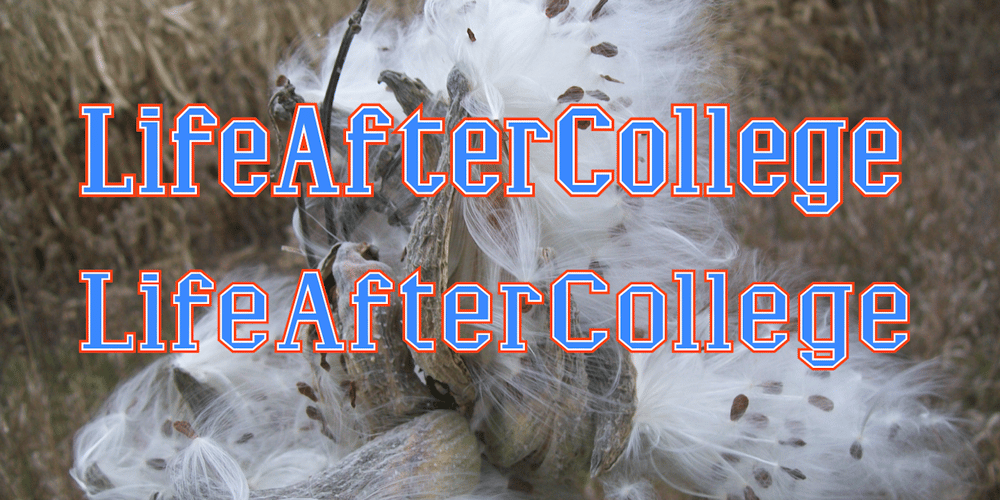
LifeAfterCollege
LifeAfterCollege font
LifeAfterCollege Font Family was designed by Robert Schenk and published by Ingrimayne Type. LifeAfterCollege contains 10 styles and family package options. The LifeAfterCollege family began as a set of four fonts based on two styles of Ranger, which are slab-serif, geometric fonts with no curves. Two of the four are outlines with hollow insides, and two have-filled insides. The two fonts that are outlined have been taken apart and made into three typeface that can be layered. This allows one color for the inside, another for the middle ring, and a third for the outside outline.